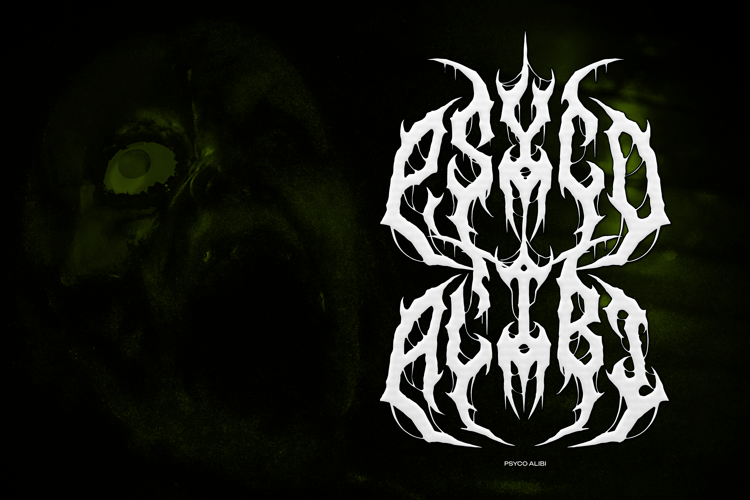
Omenist Font
Omenist | Black Metal Typeface product packaging, mugs, quotes, posters, shopping bags, t-shirts, book covers, name card, invitation cards, greeting cards, label, photography, watermark, special events, and all your other lovely projects that need a Black Metal Typeface taste.